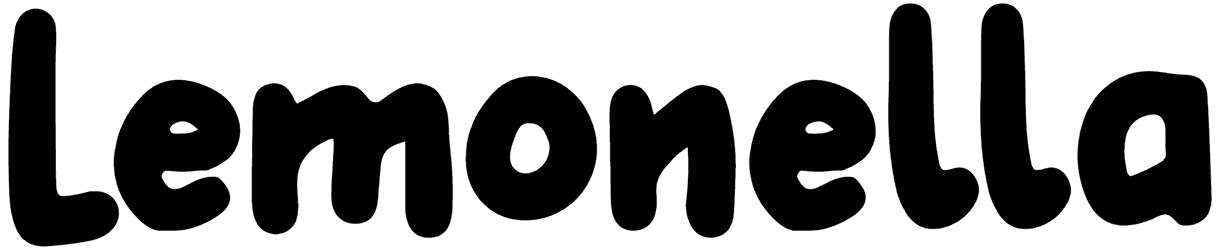
Lemonella Font
Are you looking for a relaxed and tasty font for your summer project? So try Lemonella. This handwritten font can create a minimal aesthetic in the project, not limiting your freedom in choosing the background.
So, if you have a light experience and want to highlight your content, use the highlighted letters of this summer font. This is where you can showcase your creative ideas for posters, advertisements, and seasonal festivals.